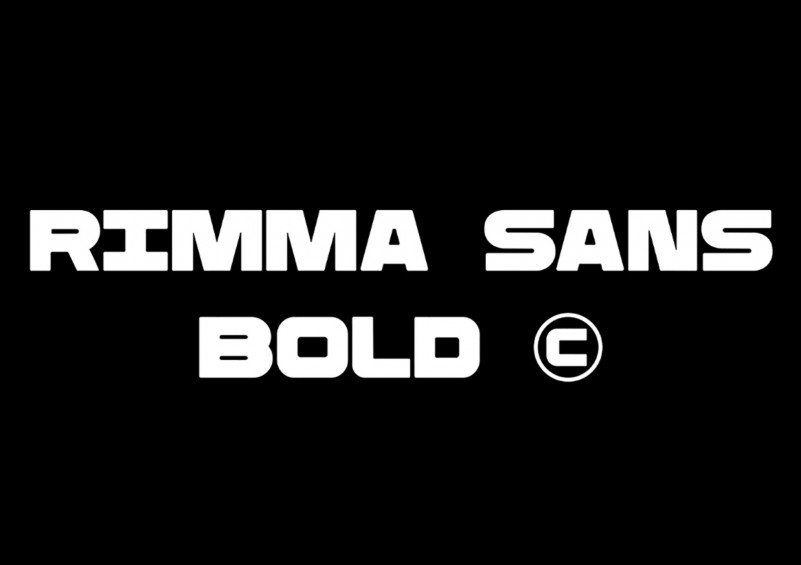
Rimma Bold Font
Introducing Rimma Bold Sans Serif Font – Sport fashion branding display sans serif font that take inspiration from by concrete constructions and monumental architecture.
It has solid and bold construction, contrasting with narrow punctuation marks. The base is the relation between metal constructions and concrete foundation.